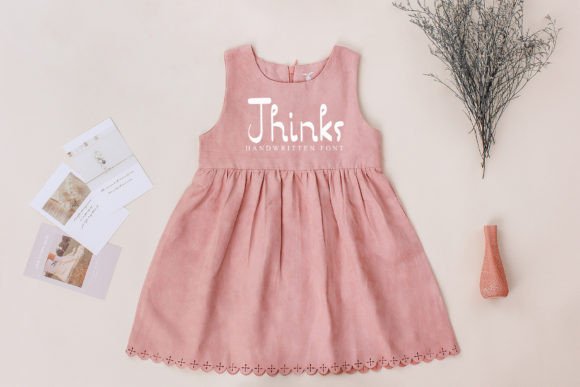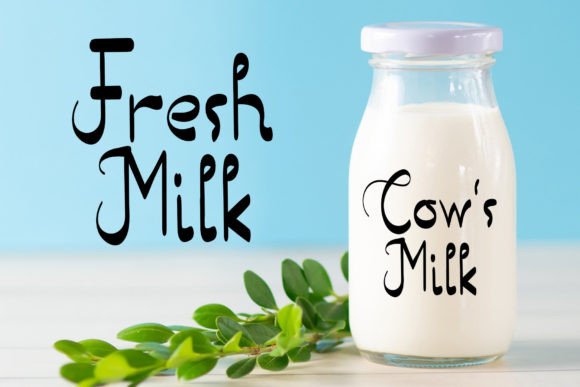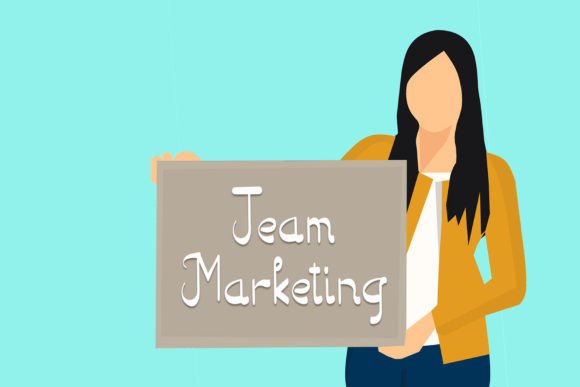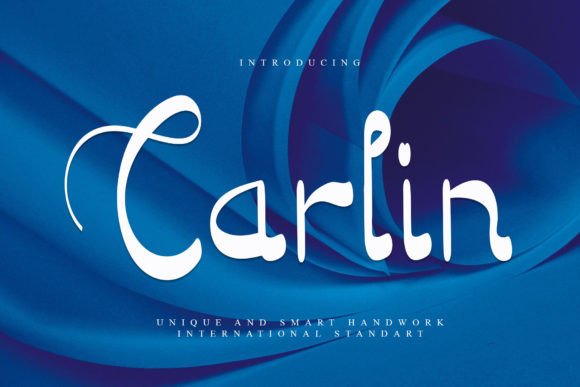
The Carlin Font: A Unique and Elegant Addition to Your Design Arsenal
I’ll never forget the time I was working on a wedding invitation project, and my client asked for a font that was both elegant and playful. I scoured the internet, tried out dozens of fonts, but nothing seemed quite right. That was until I stumbled upon the Carlin font. With its unique blend of handwritten charm and sophistication, it was the perfect fit for the project. In this article, I’ll share my experience with the Carlin font, and explore its features, uses, and alternatives.
A First Impression: What I Love About Carlin
The Carlin font is a true gem, and here’s what I love about it:
- ✨ Unique and elegant design that’s perfect for wedding invitations, greeting cards, billboards, logos, and business cards
- ✅ Handwritten touch with a natural, hand-made feel
- ✅ PUA encoded, making it easy to access all glyphs and swashes
- ✅ Spectacular creations that will make your ideas look more real
While I absolutely love the Carlin font, there are a few quirks to be aware of:
- ⚠️ Some users may find the font a bit too ornate for certain projects
- 🤔 Limited use on very small scales, such as body text or captions
The Designer Inspiration Behind Carlin
The Carlin font was inspired by the classic calligraphy styles of the past, with a modern twist. Its creator aimed to craft a font that was both elegant and playful, perfect for designs that require a touch of sophistication. While the true story behind Carlin’s creation may be unknown, its unique design and versatility have made it a favorite among designers and crafters alike.
| What is the Carlin font best used for? | The Carlin font is perfect for designs that require a handwritten touch, such as wedding invitations, greeting cards, billboards, logos, and business cards. |
| Is the Carlin font PUA encoded? | Yes, the Carlin font is PUA encoded, making it easy to access all glyphs and swashes. |
| What are some common design mistakes to avoid when using the Carlin font? | Some common design mistakes to avoid when using the Carlin font include overusing it, using it at very small scales, and not experimenting with OpenType features and glyphs. |